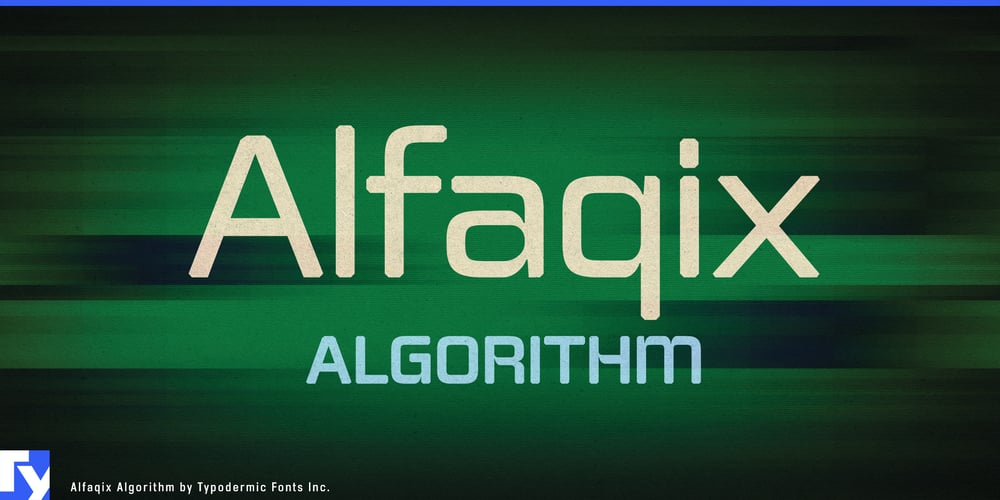
Alfaqix Algorithm
Alfaqix Algorithm font
Alfaqix Algorithm Font Family was designed by Ray Larabie and published by Typodermic. Alfaqix Algorithm contains 8 styles and family package options. Alfaqix Algorithm: Typodermic Fonts’ gateway to typographic singularity. This avant-garde typeface decodes the future of communication, translating binary precision into visual eloquence. Its squarish yet fluid forms embody the perfect symbiosis of human creativity and machine efficiency.Each chamfered, octagonal stroke end in Alfaqix Algorithm is a data point in a grand design, creating a modular system that’s both structured and dynamic. Available in four weights—Light, Regular, SemiBold, and Bold, each with corresponding italics—this typeface offers a spectrum of expressive possibilities.Alfaqix Algorithm speaks fluently across most Latin-based European writing systems, ensuring your message computes clearly from Afrikaans to Zulu. It’s the ideal choice for designs that aim to break through the noise of the present and resonate with the frequencies of tomorrow.For those ready to render the future in type, Alfaqix Algorithm is your code. Deploy it in user interfaces, data visualizations, or any design where the aesthetics of innovation are paramount. With Alfaqix Algorithm, you’re not just setting type—you’re programming the visual language of what’s next.